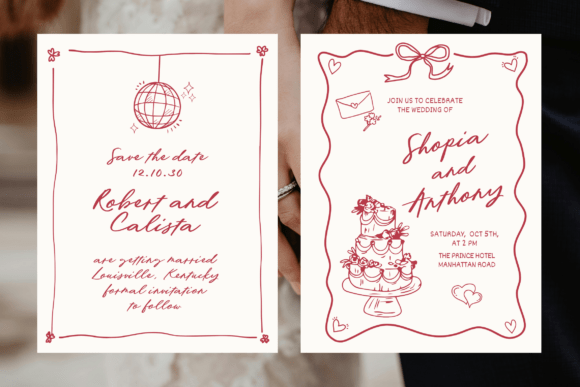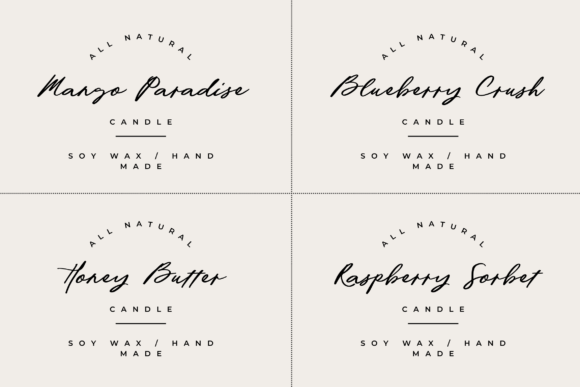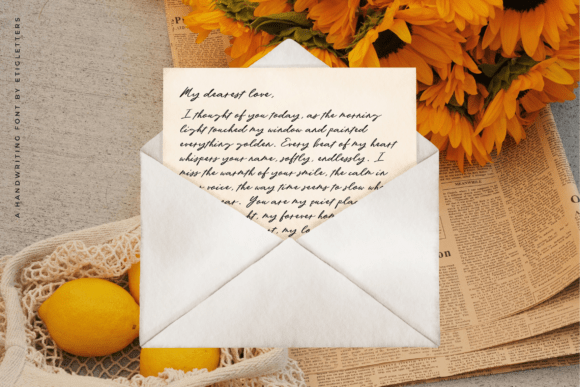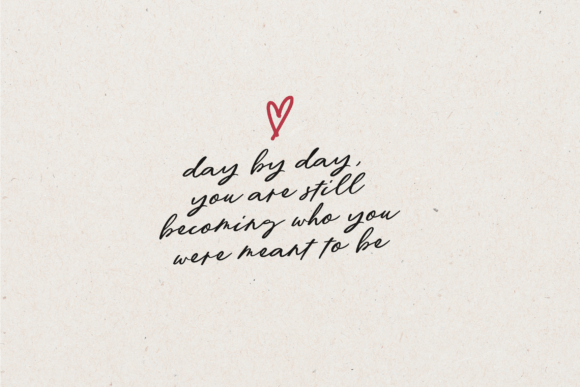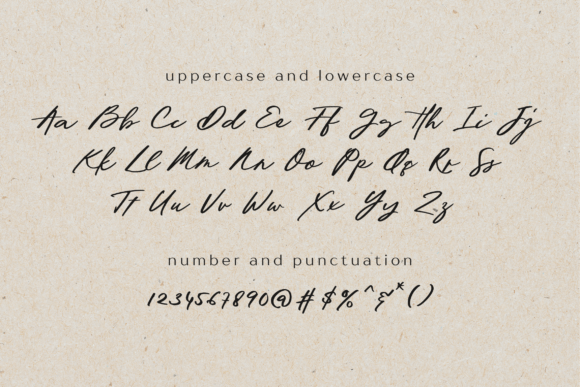
Introduction to Notes from May Font
Do you remember the feeling of writing a heartfelt letter to a loved one, or pouring your thoughts onto the pages of a personal journal? The sensation of putting pen to paper, watching your words come to life in a delicate dance of ink and gesture. It’s a feeling that’s hard to replicate with digital tools, but with the right font, you can come close. That’s where the Notes from May Font comes in – a beautiful, handwritten script font that captures the essence of personal writing and adds a touch of warmth to any design.
As a designer, you know the value of a high-quality font that can elevate your creative projects and leave a lasting impression on your audience. With its clean simplicity and emotional tone, the Notes from May Font is the perfect addition to your design resource library – and the best part? It’s available for free download, complete with a transparent background that makes it easy to integrate into your designs.
Key Features of Notes from May Font
- High-quality, unique font design suitable for creative projects, with a transparent background for easy integration into various designs.
- Includes a comprehensive set of characters, including uppercase and lowercase letters, numbers, and special symbols, making it ideal for various design applications.
- Designed to be scalable, ensuring crisp and clear text even at high resolutions, making it suitable for use in print and digital media.
Honest Review: Notes from May Font
I recently stumbled upon the Notes from May Font and I must say it’s a great addition to any design resource collection. The font is a free download, which is always a bonus for designers on a budget.
The Notes from May Font is perfect for creative projects that require a high-quality, elegant look. The font features a transparent background, making it easy to layer and blend with other design elements.
- ✨ Great for titles and headings due to its elegant and sophisticated look.
- ✨ Highly versatile, can be used for various creative projects, from branding to print materials.
- ✨ The transparent background makes it easy to work with and layer with other design elements.
- ⚠️ Limited font sizes – some of the font sizes may not be suitable for large body text.
- ⚠️ May not be ideal for projects that require a lot of bold or condensed text.
Overall, I’m impressed with the Notes from May Font. It’s a great addition to any design resource collection and can be used for a variety of creative projects. With a little creativity, you can overcome the limitations and achieve a high-quality design.
Use Notes from May Font in conjunction with a transparent background to create a clean and modern design. Experiment with different font sizes and styles to add visual interest to your project. Consider using the font in a creative project, such as a journal or scrapbook, to add a personal touch.
Notes from May Font is a versatile font that can be used in a variety of creative projects, including digital designs, print materials, and handmade crafts. It’s perfect for designers, artists, and writers looking for a high-quality, free design resource.